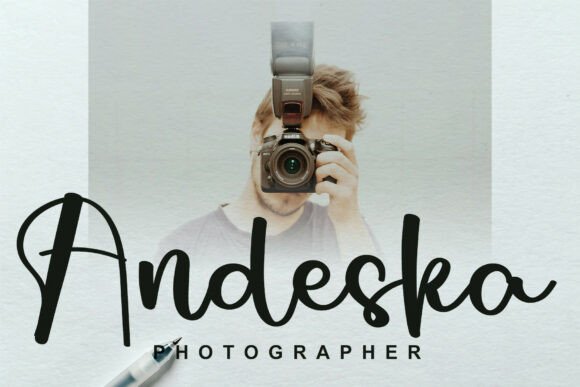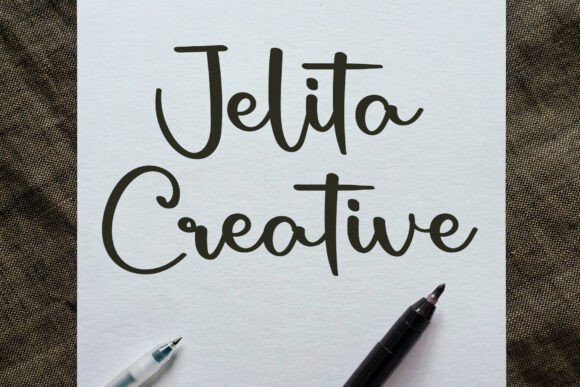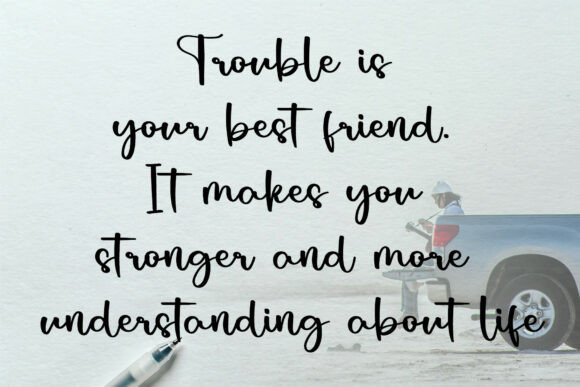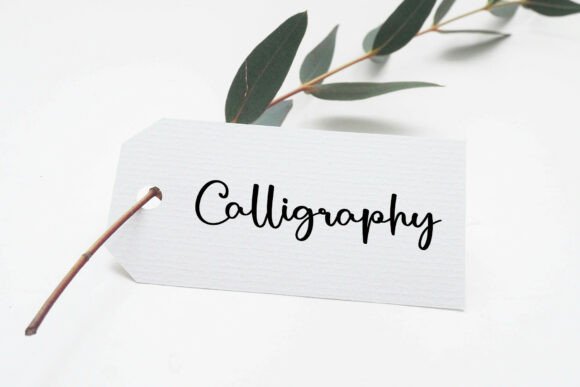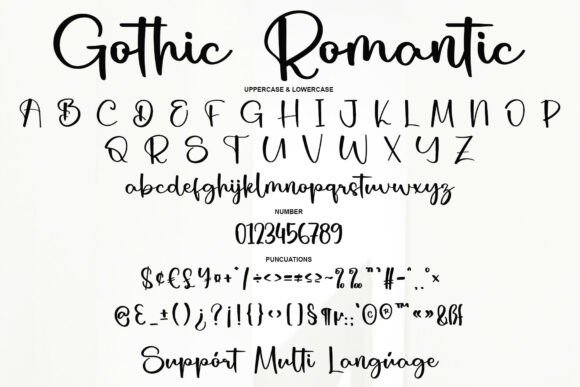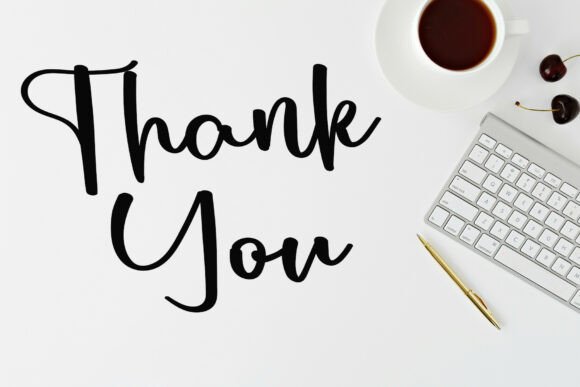
The Magic of Gothic Romantic Font: A Designer’s Dream Come True
I still remember the design project that led me to discover the Gothic Romantic Font. I was working on a wedding invitation suite for a client who wanted something elegant, yet modern and soulful. As I scrolled through font after font, I couldn’t shake the feeling that something was missing. That was until I stumbled upon Gothic Romantic – a sophisticated and fluid script font that masterfully blends traditional elegance with a modern, artistic touch.
- ✅ Elegant and refined aesthetic that’s perfect for high-end projects
- ✅ Fluid and connected script that mimics handwriting
- ✅ Delicate, fine-point pen aesthetic that adds a touch of sophistication
- ✅ Extensive OpenType features, including glyphs and stylistic alternates
- ⚠️ May not be the best choice for very large or very small text sizes
- ⚠️ Some characters may require manual kerning for optimal spacing
- ⚠️ Limited availability of bold or heavy weights
The Story Behind Gothic Romantic
While the true origins of Gothic Romantic are shrouded in mystery, it’s said that the font was inspired by the works of 19th-century calligraphers and lettering artists. The designer, a master of fluid script typography, sought to create a font that would evoke the elegance and sophistication of traditional calligraphy, while still feeling modern and approachable.
Q: What makes Gothic Romantic so special?
A: Gothic Romantic’s unique blend of traditional elegance and modern sophistication makes it a standout font for a wide range of design projects.
Q: Does Gothic Romantic come with any OpenType features?
A: Yes, Gothic Romantic includes a range of OpenType features, including glyphs, stylistic alternates, and more.